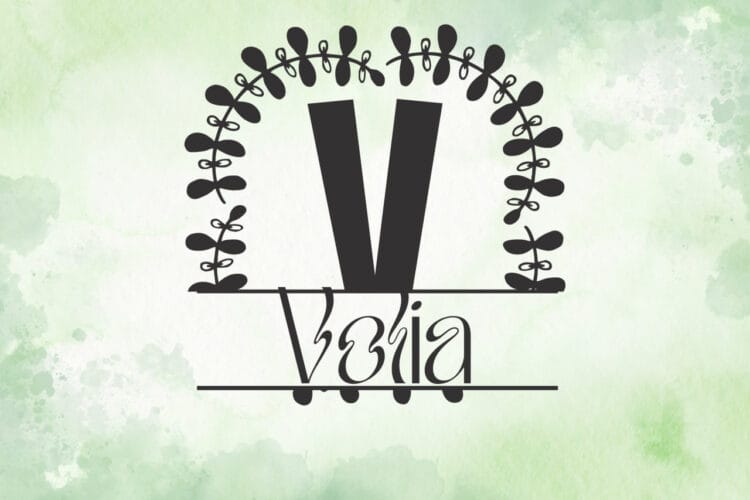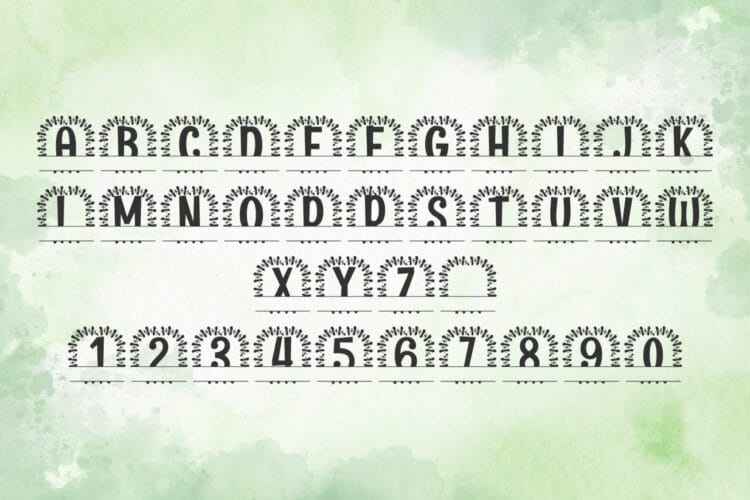
Meet Ornalis Split Monogram Font
Ornalis Split Monogram Font turns any initial into a custom-ready nameplate in seconds. Clean, balanced letterforms carry a refined presence, while the horizontal split creates a natural space for names, dates, or short words. Because spacing stays even and counters remain open, designs look polished on tiny tags, door hangers, tumblers, ornaments, and wall art. Use it for wedding keepsakes, family gifts, boutique packaging, and premium signage. In addition, this split monogram font pairs beautifully with a simple sans or light script, so every layout stays readable and elegant.
Where this split monogram font shines
Set one bold initial and drop the family name inside the split for instant personalization. Next, try couple names for engagement gifts, venue names for wayfinding, or short words like “Home,” “Welcome,” and “Love” for seasonal décor. Since proportions favor clarity, your files scale smoothly for Cricut, Silhouette, Glowforge, and laser projects. As a result, you can batch customization for markets and storefronts without losing quality or wasting material.
Design tips for Ornalis Split Monogram
Keep the hero initial large and let white space breathe. Place the split at center or slightly low for a calm baseline. Choose a clean secondary font inside the split to protect legibility on small items. Because the style is airy and poised, metallic foils, textured stocks, and natural woods add instant value. However, keep names concise so the composition stays balanced and readable at thumbnail size.
Uppercase alphabet optimized for split monograms
Matching lowercase, numbers, punctuation
Curves tuned for engraving, foil, laser cutting, and clean vinyl paths
Why makers choose this split monogram font
You want fast personalization that still feels bespoke. Ornalis Split Monogram Font delivers consistent, high-end name designs in minutes while keeping your shop’s visual language cohesive across many product types.